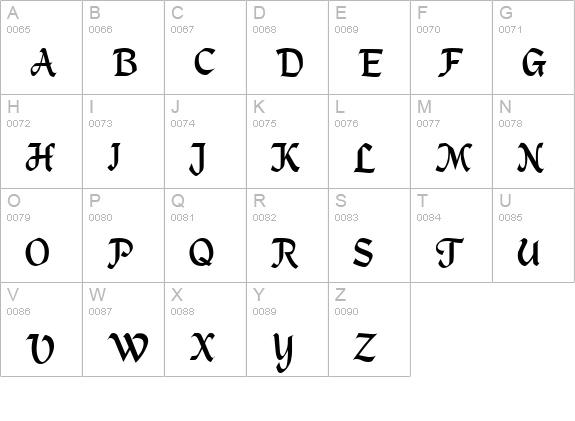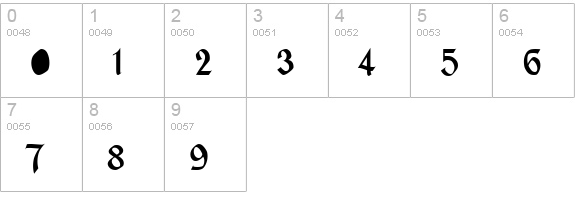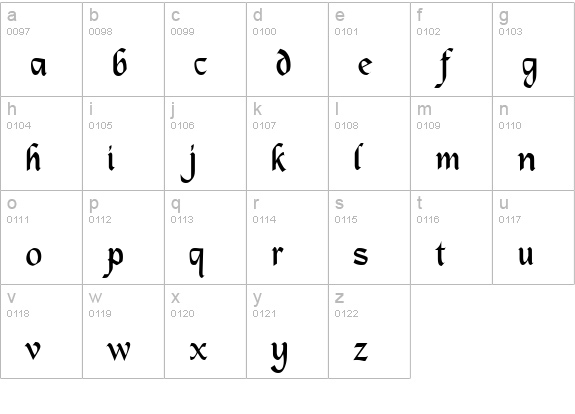
MacHumaine Regular Font Details
MacHumaine Regular is the standard, neutral variant in the MacHumaine typeface family \xE2\x80\x94 well suited to general body text, paragraphs, and standard typographic work.
MacHumaine Regular is a versatile typeface that combines modern elegance with a touch of classic design. With its clean lines and balanced proportions, this font is perfect for a wide range of creative projects, from branding and advertising to editorial and web design. The MacHumaine Regular font offers a unique blend of sophistication and approachability, making it suitable for both professional and personal use. Its carefully crafted letterforms exude a sense of professionalism and attention to detail, while its subtle curves and rounded edges add a friendly and welcoming touch. One of the most appealing aspects of MacHumaine Regular is that it is available for free download at FontsMarket.com. This means that anyone can enjoy the benefits of this exceptional font without any cost. Whether you're a professional designer looking to elevate your work or an individual looking to add a touch of style to your personal projects, MacHumaine Regular is a fantastic choice. With its extensive character set and multiple weights, MacHumaine Regular offers endless possibilities for customization and creativity. Whether you need a bold headline or a delicate script, this font has you covered. Its versatility is further enhanced by its wide range of language support, ensuring that it can be used in projects all around the world. So why wait? Download MacHumaine Regular today from FontsMarket.com and unleash your creativity. Enjoy the freedom to create stunning designs with this exceptional font that is both visually appealing and freely available.